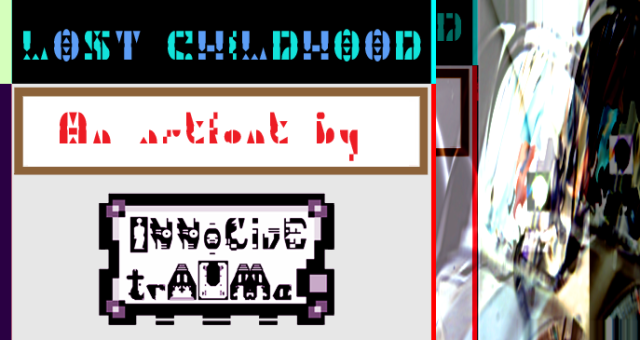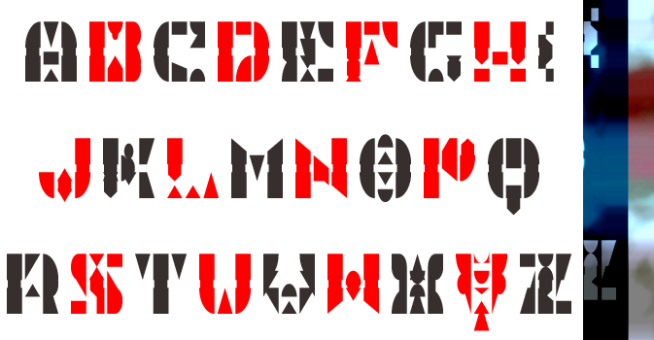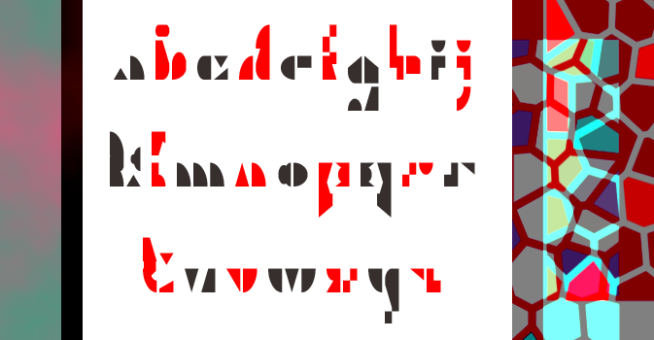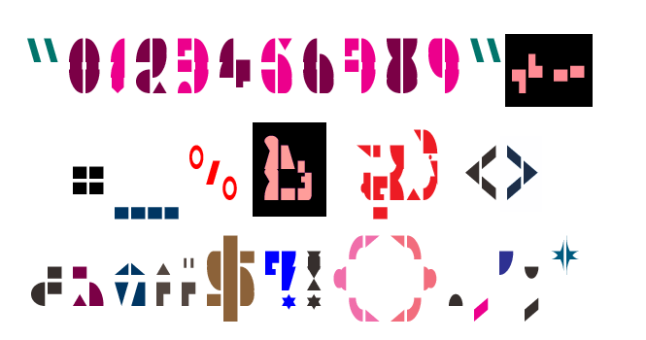
trAUMa 53 / Lost Childhood
"Lost Childhood", like all the "trAUMa" series, works at the frontier between Art & Type Design, Figuration & Abstraction, each font is a comprehensive world in which every glyph is a "living" entity. But put together they can produce your messages in the most accurate way.